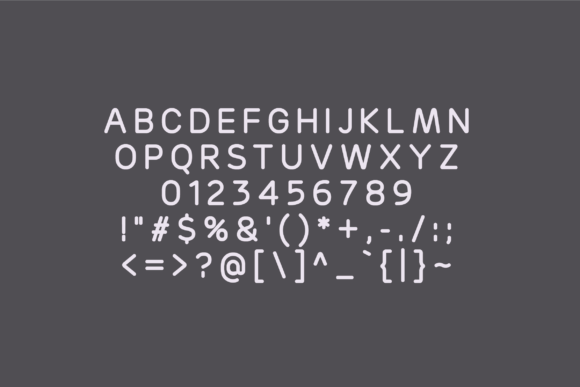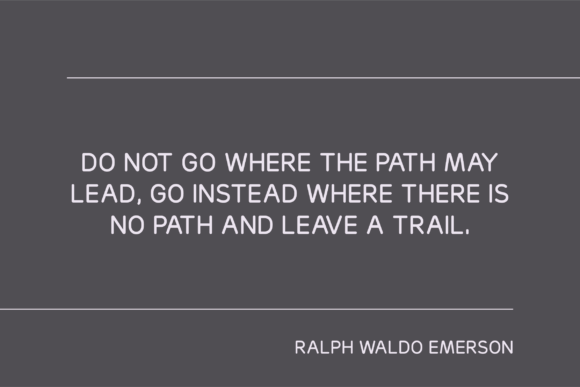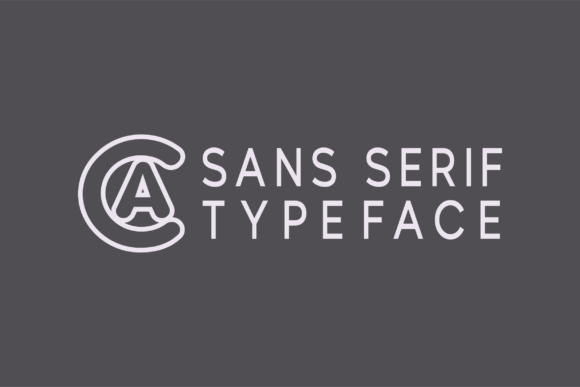
Introduction to Schoolbellz Font
Schoolbellz is a bold, modern, all caps sans-serif font designed for clean, impactful visuals.
Its perfect for logos, headlines, posters, packaging, and digital content Built for clarity and style, this typeface brings a strong, confident look to any design.
Key Features of Schoolbellz Font
Why Choose Schoolbellz Font?